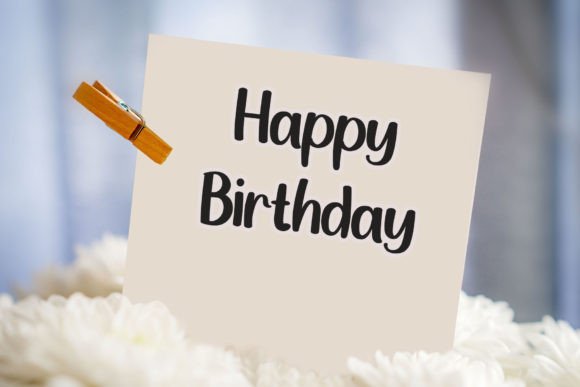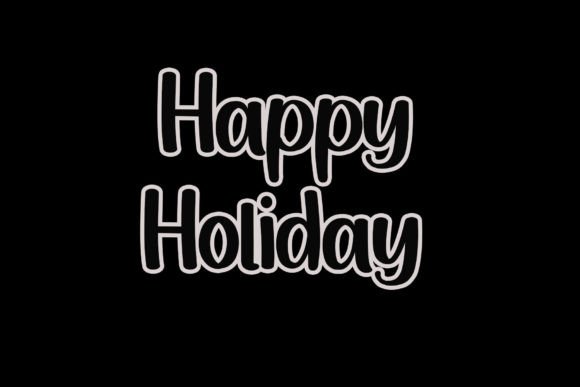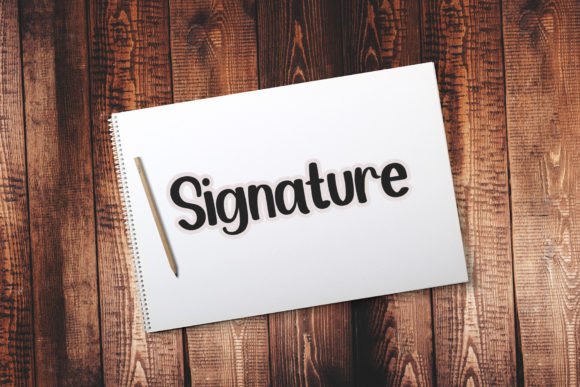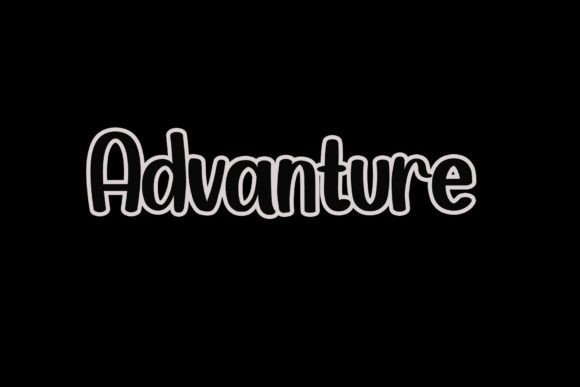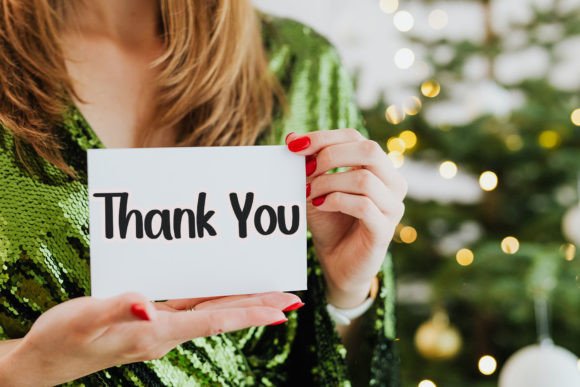
Introducing Archipelago Font: Elevate Your Designs with Timeless Elegance
Are you a designer or crafter looking for a font that exudes sophistication and refinement? Look no further than Archipelago Font, a trendy handwritten font that brings a contemporary atmosphere and impeccable form to your design projects. Inspired by timeless classic calligraphy, Archipelago Font is the perfect choice for those seeking to add a touch of elegance and class to their work.
The Inspiration Behind Archipelago Font
Archipelago Font draws inspiration from the world of classic calligraphy, where the art of beautiful handwriting has been perfected over centuries. The font’s creator has skillfully captured the essence of traditional calligraphy, infusing it with a modern twist to create a unique and stylish font that is both versatile and eye-catching.
Key Features of Archipelago Font
- Handwritten with love: Archipelago Font is a carefully crafted handwritten font, with each letter lovingly designed to perfection.
- Contemporary atmosphere: Despite its classic inspiration, Archipelago Font has a distinctly modern feel, making it perfect for designers and crafters who want to stay on-trend.
- Impeccable form: Every letterform in Archipelago Font has been meticulously designed to ensure that it is both aesthetically pleasing and highly legible.
- Timeless elegance: Archipelago Font’s classic inspiration ensures that it will never go out of style, making it a valuable addition to any designer’s font collection.
Uses for Archipelago Font
Archipelago Font is an incredibly versatile font that can be used in a wide range of design projects, including:
- Branding and logos: Add a touch of sophistication to your brand identity with Archipelago Font.
- Wedding and event invitations: Make your special day even more memorable with beautiful, elegant invitations featuring Archipelago Font.
- Stationery and greeting cards: Add a personal touch to your correspondence with Archipelago Font.
- Packaging and product design: Stand out on store shelves with eye-catching packaging and product designs featuring Archipelago Font.
Why Choose Archipelago Font?
With so many fonts available, why choose Archipelago Font? Here are just a few reasons why designers and crafters love this beautiful font:
- Unique and stylish: Archipelago Font is a one-of-a-kind font that will help your designs stand out from the crowd.
- Elegant and sophisticated: Add a touch of refinement to your designs with Archipelago Font.
- Highly legible: Despite its elegant nature, Archipelago Font is highly legible, making it perfect for use in a wide range of design projects.
In conclusion, Archipelago Font is a must-have for designers and crafters seeking to add a touch of elegance and class to their work. With its unique blend of classic inspiration and modern style, this beautiful font is sure to impress. Whether you’re working on a branding project, designing wedding invitations, or creating packaging and product designs, Archipelago Font is the perfect choice. So why not give it a try and see the difference it can make in your designs?